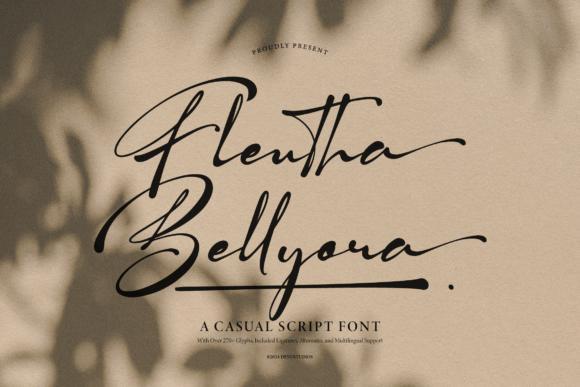
Introducing Flentha Bellyora Font: The Perfect Casual Script Font for Your Creative Projects
Are you looking for a font that can add a touch of elegance and sophistication to your creative projects? Look no further than Flentha Bellyora Font. This beautiful casual script font is perfect for a wide range of projects, from logos and branding to homeware designs, product packaging, and more.
Key Features of Flentha Bellyora Font
- Casual Script Style: Flentha Bellyora Font has a unique casual script style that is perfect for adding a personal touch to your projects.
- Highly Versatile: This font is suitable for a wide range of projects, including logos, branding projects, homeware designs, product packaging, mugs, quotes, posters, shopping bags, t-shirts, book covers, name cards, invitation cards, greeting cards, labels, photography, watermarks, and more.
- Easily Readable: Despite its elegant and cursive style, Flentha Bellyora Font is highly readable, making it perfect for both digital and print applications.
- Multilingual Support: This font supports multiple languages, making it a great choice for global brands and projects.
10 Creative Project Ideas Using Flentha Bellyora Font
- Logo Design: Create a stunning logo for your brand using Flentha Bellyora Font. Its unique casual script style will help your brand stand out from the competition.
- Branding Projects: Use Flentha Bellyora Font to create a consistent brand identity across all your marketing materials, including business cards, brochures, and website.
- Homeware Designs: Add a touch of elegance to your homeware designs, such as kitchenware, bedding, and towels, using Flentha Bellyora Font.
- Product Packaging: Make your product packaging stand out with Flentha Bellyora Font. Its casual script style is perfect for creating eye-catching labels and packaging.
- Mugs and Water Bottles: Create personalized mugs and water bottles using Flentha Bellyora Font. It’s a great way to add a touch of elegance to everyday items.
- Quotes and Posters: Use Flentha Bellyora Font to create inspiring quotes and posters. Its elegant style will make your quotes and posters stand out.
- Shopping Bags: Add a touch of sophistication to your shopping bags using Flentha Bellyora Font. It’s a great way to promote your brand and create a memorable shopping experience.
- T-Shirts and Apparel: Create stylish t-shirts and apparel using Flentha Bellyora Font. Its casual script style is perfect for creating fashionable and trendy designs.
- Book Covers: Use Flentha Bellyora Font to create eye-catching book covers. Its elegant style will make your book stand out on bookshelves.
- Invitation Cards and Greeting Cards: Create personalized invitation cards and greeting cards using Flentha Bellyora Font. Its casual script style is perfect for special occasions.
Typography Tips for Using Flentha Bellyora Font
To get the most out of Flentha Bellyora Font, here are some typography tips to keep in mind:
- Use it as a Headline Font: Flentha Bellyora Font is perfect for headlines and titles. Use it to create eye-catching headings that grab attention.
- Pair it with a Sans-Serif Font: For body text, pair Flentha Bellyora Font with a sans-serif font, such as Arial or Helvetica, to create a nice contrast.
- Adjust the Font Size: Experiment with different font sizes to create visual hierarchy and emphasis.
- Use it in Combination with Images: Flentha Bellyora Font looks great in combination with images. Use it to create stunning visuals that tell a story.
Flentha Bellyora Font is a beautiful casual script font that is perfect for a wide range of creative projects. Its elegant and sophisticated style makes it a great choice for brands and designers looking to add a touch of elegance to their designs. With its highly versatile nature, Flentha Bellyora Font is sure to become a staple in your font library.